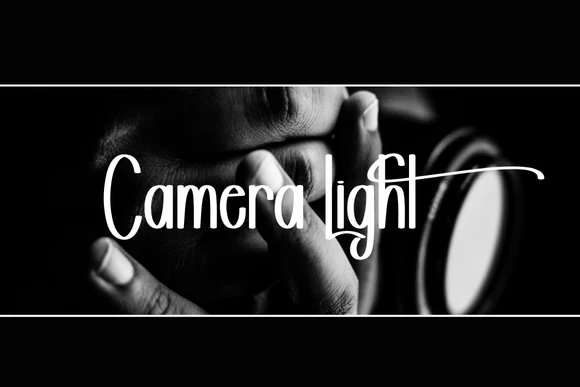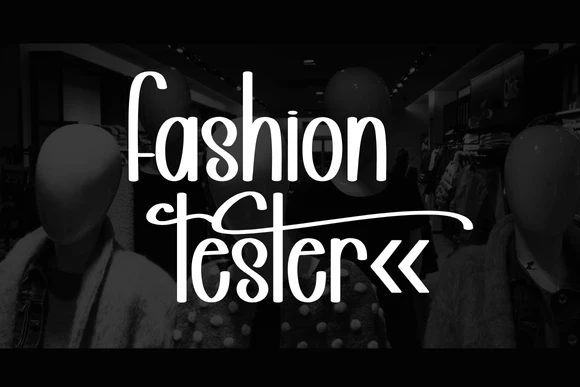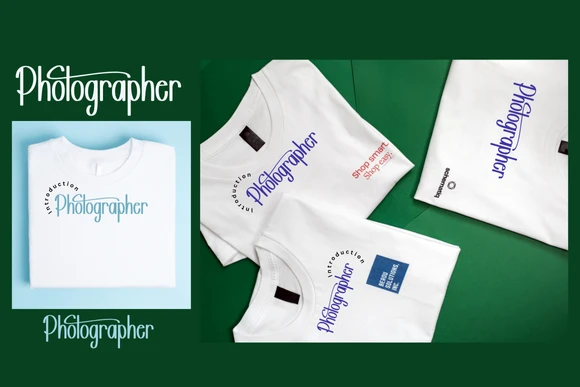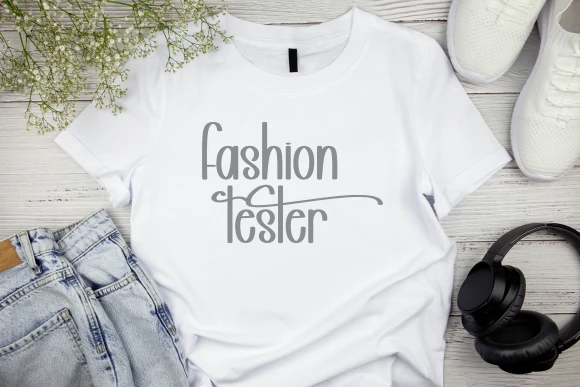
Showcase your visuals with Photography Font ā a clean, modern, and easy-to-read typeface crafted to complement images and graphics. Perfect for logos, watermarks, branding, invitations, packaging, websites, and social media posts, Photography adds a professional yet artistic touch to any design. This font includes uppercase, lowercase, numbers, punctuation, and multilingual characters, making it ideal for both print and digital use.
Whether youāre a designer, photographer, small business owner, or DIY creator, Photography Font brings a polished, creative edge to your work.